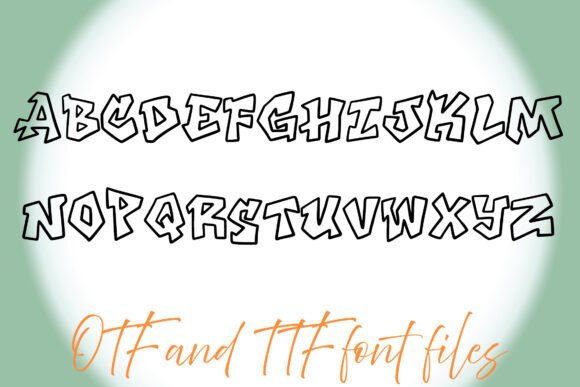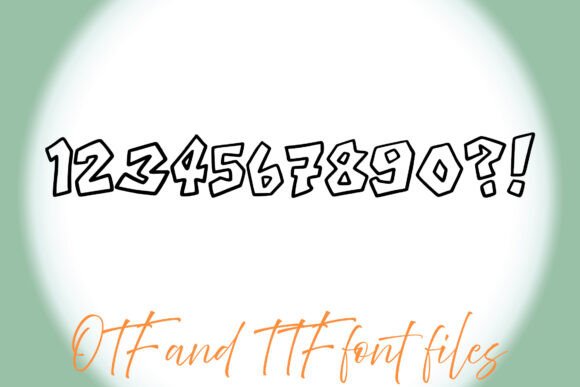
Make Your Messages Pop with the Graffiti Font
Are you tired of using the same old fonts for your designs? Do you want to add a pop of color and personality to your posters, merchandise, or branding? Look no further than the Graffiti Font, a vibrant and playful typeface that’s sure to turn heads. In this article, we’ll explore the world of Graffiti Fonts, their characteristics, and how you can use them to elevate your designs.
What is a Graffiti Font?
A Graffiti Font is a type of font that mimics the style of street art graffiti. Characterized by bold, outlined letters in eye-catching hues, Graffiti Fonts are perfect for designs that need a youthful and edgy vibe. These fonts are often used in poster designs, modern merch, and youth-centered branding, as they add a touch of urban flair and personality to any message.
Characteristics of Graffiti Fonts
Graffiti Fonts are known for their distinctive characteristics, which include:
- Bold and outlined letters: Graffiti Fonts feature thick, bold lines that outline each letter, making them stand out from the background.
- Eye-catching hues: Graffiti Fonts often come in a range of bright, vibrant colors that add a pop of personality to any design.
- Urban and edgy feel: Graffiti Fonts have a distinctly urban, street-art feel that’s perfect for designs that need a youthful and modern vibe.
Uses of Graffiti Fonts
Graffiti Fonts are incredibly versatile and can be used in a variety of design applications, including:
- Poster designs: Graffiti Fonts are perfect for creating eye-catching posters for events, concerts, or exhibitions.
- Modern merch: Graffiti Fonts can add a cool, urban vibe to t-shirts, hats, and other merchandise.
- Youth-centered branding: Graffiti Fonts are ideal for brands that want to appeal to a younger audience, such as fashion labels, music festivals, or youth organizations.
Tips for Using Graffiti Fonts
Here are some tips for using Graffiti Fonts effectively in your designs:
- Keep it simple: While Graffiti Fonts are bold and eye-catching, they can be overwhelming if overused. Keep your design simple and focused on one or two key messages.
- Choose the right color: Select a color that complements your brand or design theme. Bright colors can add energy and excitement, while more muted tones can create a sense of sophistication.
- Experiment with layering: Graffiti Fonts can be layered over images or textures to create a unique, urban look.
Best Practices for Pairing Graffiti Fonts with Other Design Elements
When pairing Graffiti Fonts with other design elements, keep the following best practices in mind:
- Balance bold fonts with simple imagery: Pair bold Graffiti Fonts with simple, clean imagery to avoid overwhelming the design.
- Use contrasting colors: Choose colors that contrast with the Graffiti Font to create visual interest and make your design stand out.
- Keep it consistent: Use the same Graffiti Font throughout your design to create a cohesive look and feel.
The Graffiti Font is a powerful tool for designers and crafters who want to add a pop of personality to their designs. With its bold, outlined letters and eye-catching hues, this font is perfect for poster designs, modern merch, or youth-centered branding. By following the tips and best practices outlined in this article, you can harness the energy and excitement of Graffiti Fonts to create designs that truly stand out.